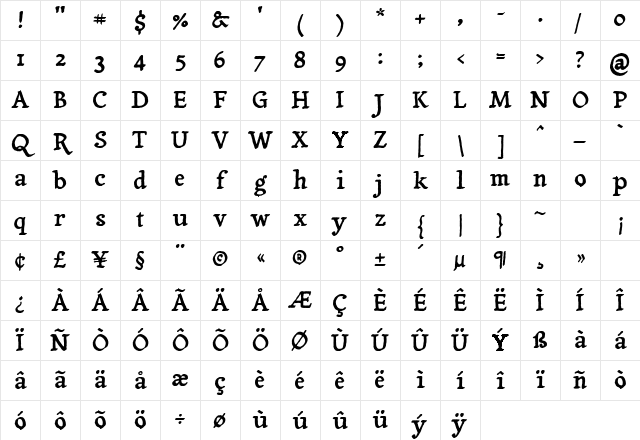
Complete Yanone Tagesschrift Regular glyph index. Displaying only characters natively supported by Yanone Tagesschrift Regular font.
Yanone Tagesschrift is a composed and adaptable typeface that performs quietly and consistently across a wide range of design contexts.